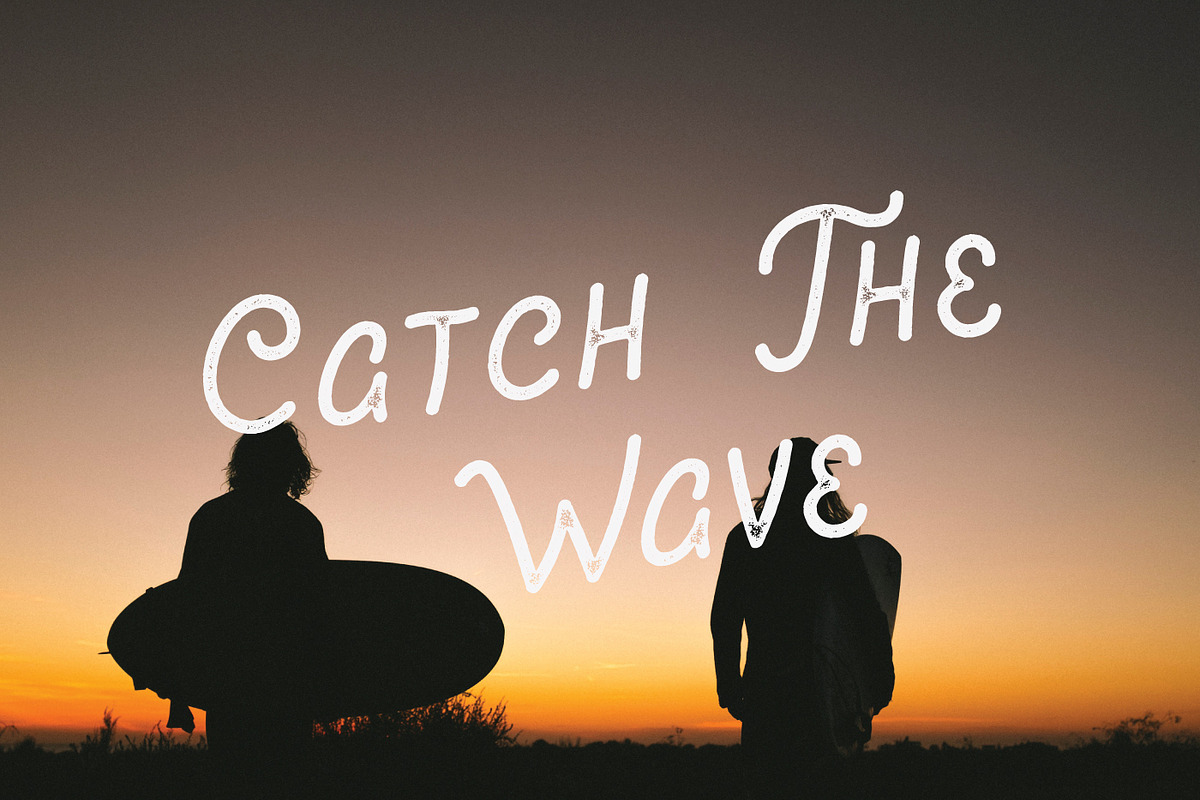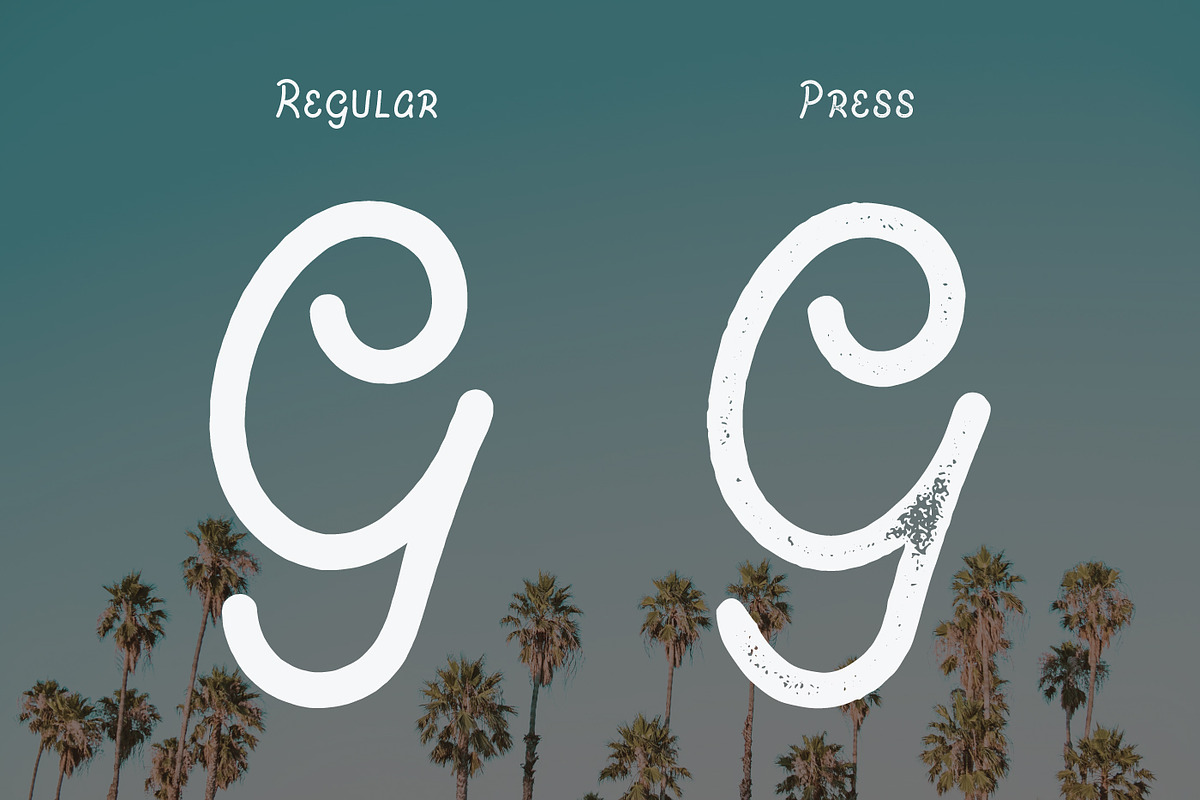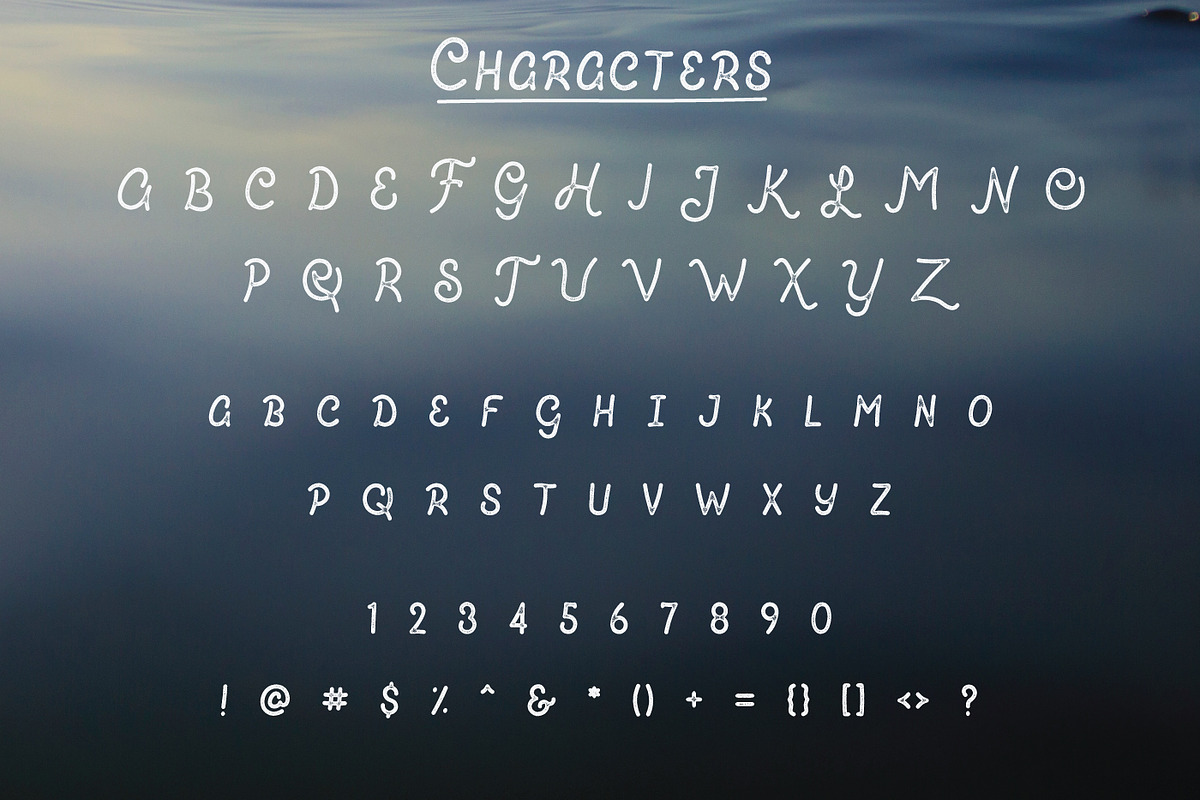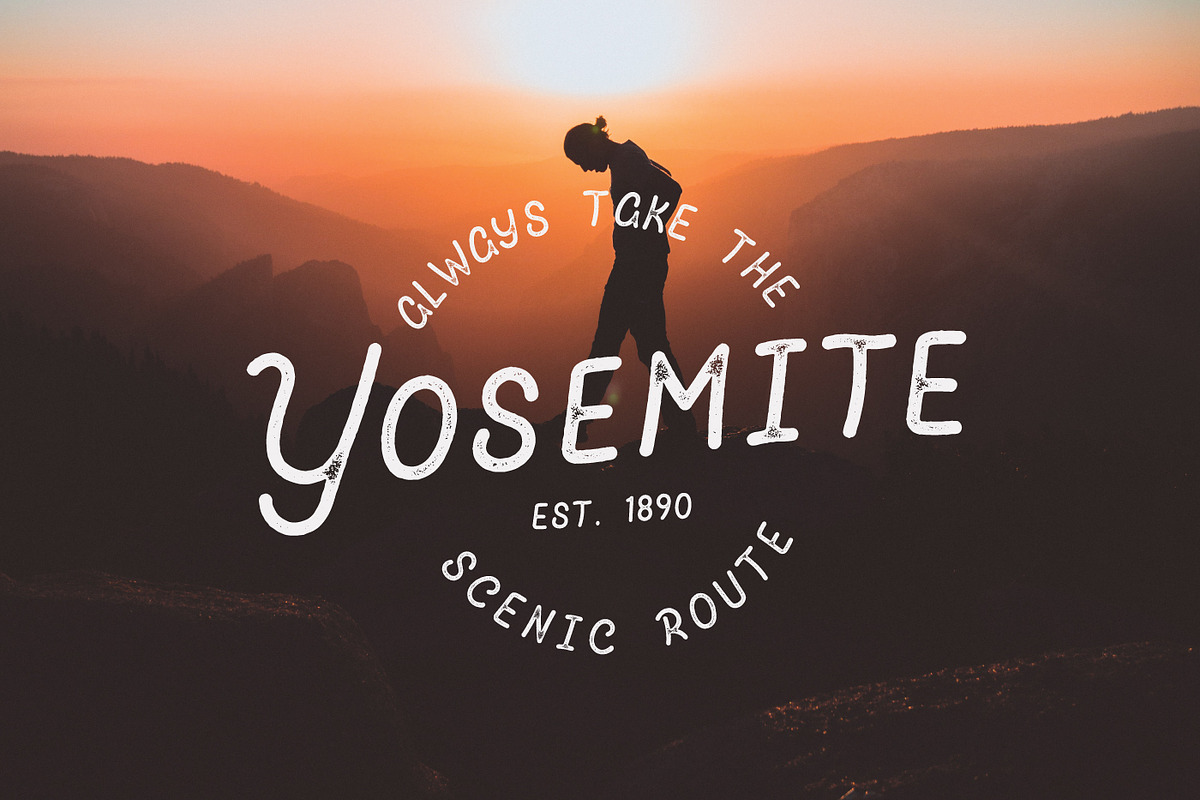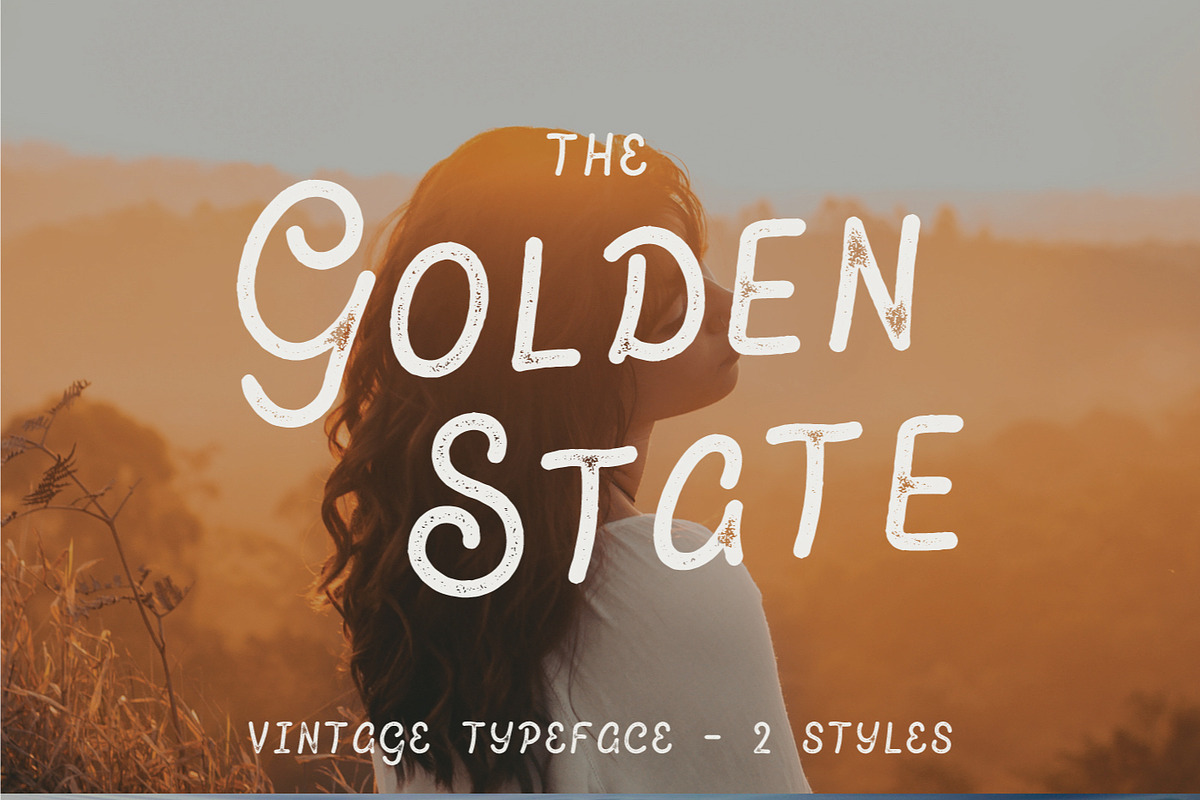
The Golden State - Vintage Font
Introducing The Golden State
The Golden State is a 2 style all-caps typeface. It features large & small capitals in 2 different styles - Regular & Press. Regular features rough edges, and press features rough edges as well as a unique imperfect letterpress style texture.
It's got a number of unique characters and the different sets of capitals make it great for creating badges, quotes, logos and anything else with a vintage or adventurous theme.